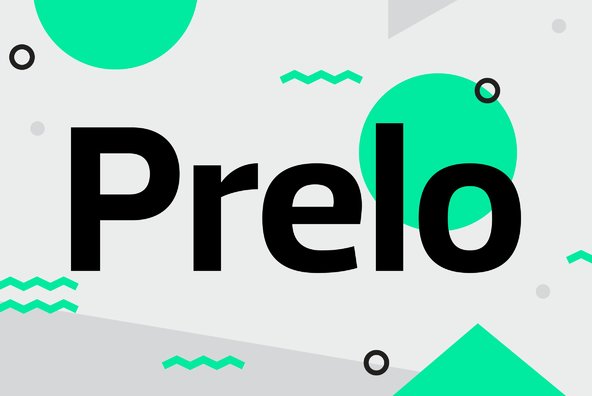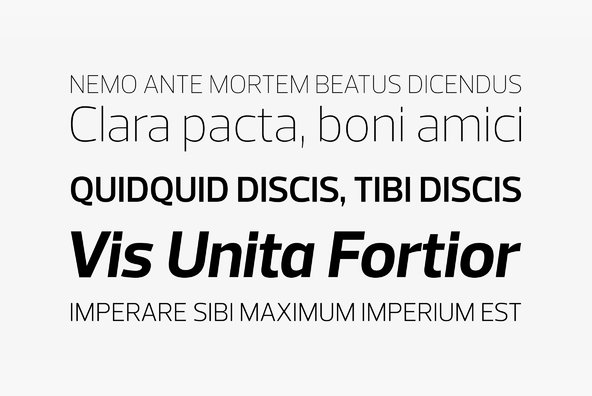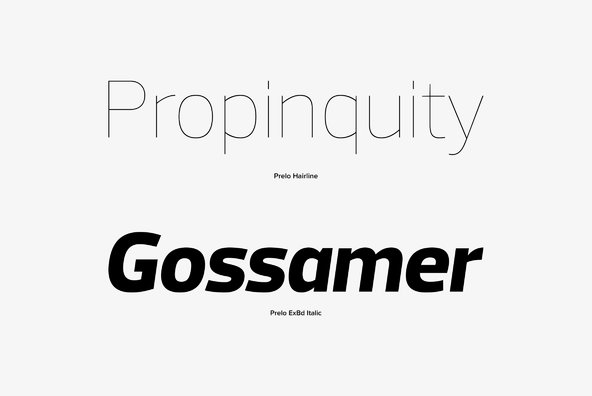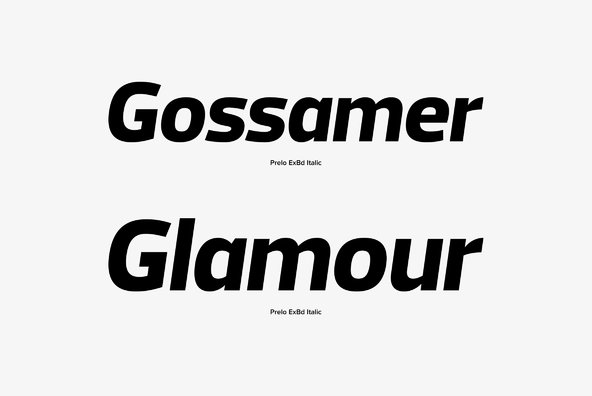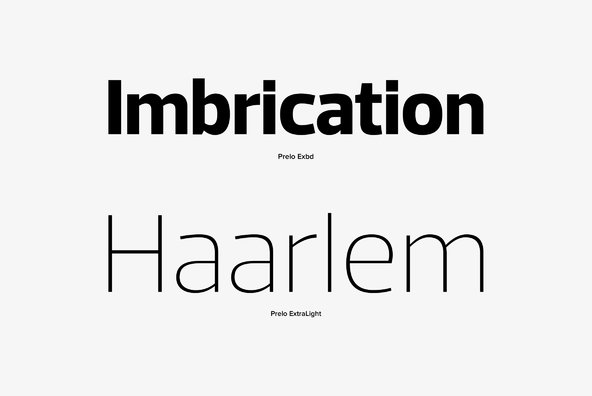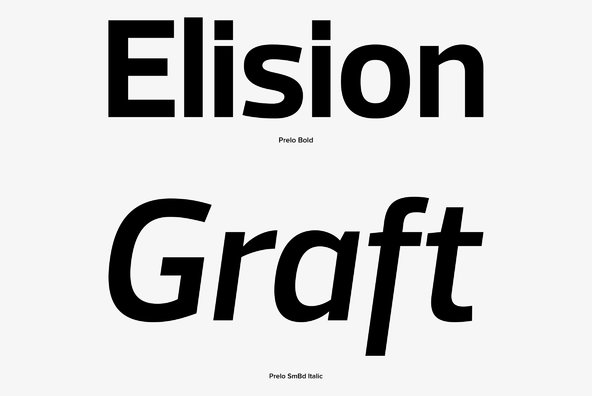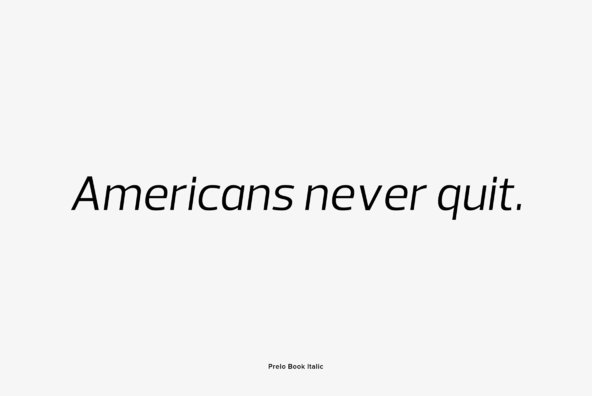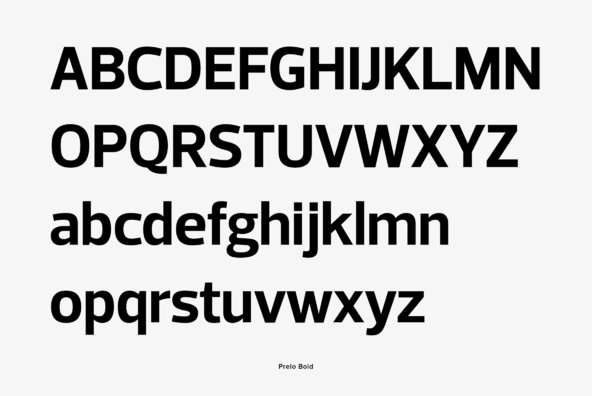
Foundry: DSType
Prelo was designed to be a neutral, highly readable typeface, for identity, editorial and information design. With nine weights and nine true italics, from Hairline to Black, Prelo is a workhorse typeface, full of OpenType features such as Small Caps, Tabular Figures, Central Europe characters and Historical Figures, among others.
Like other DSType fonts, most of the diacritics were designed to fit the gap between the x-height and the caps height, avoiding some common problems with the accented characters. The curves are soft and smooth, providing legibility, even in very poor conditions and the neutrality allows this typeface to be used with any serif companion.